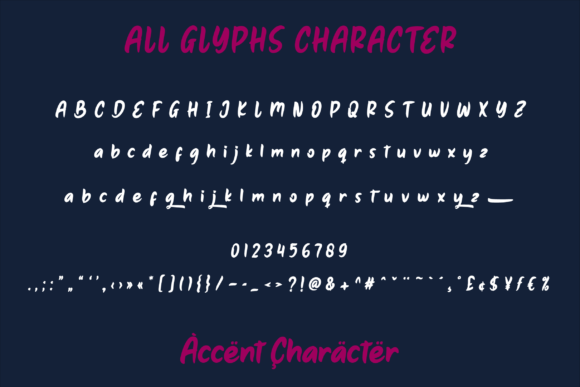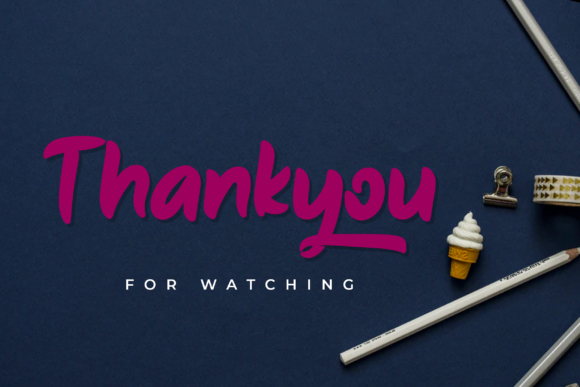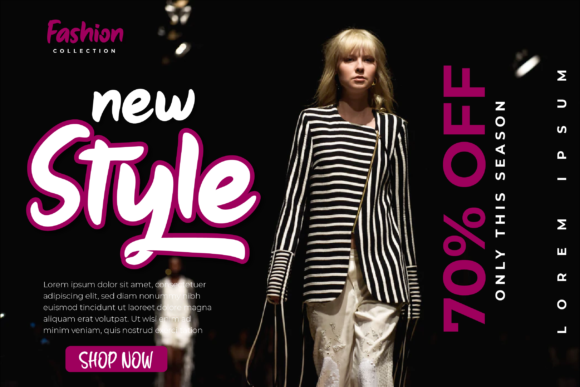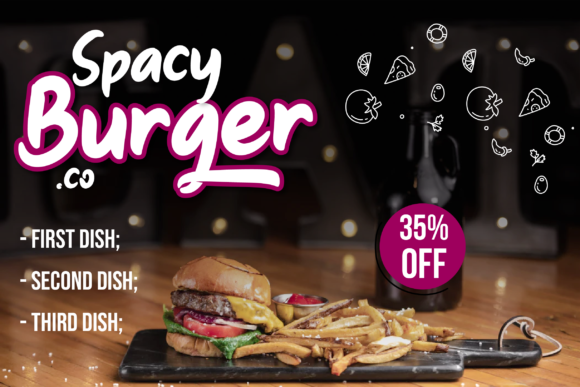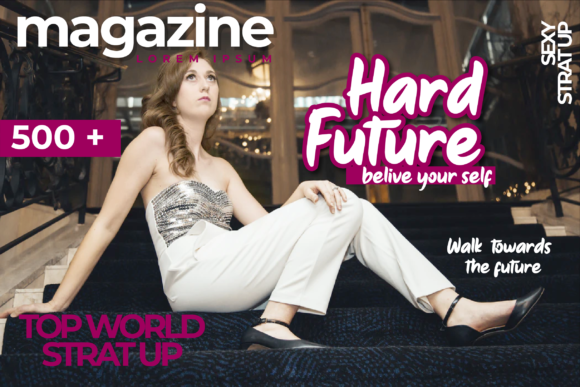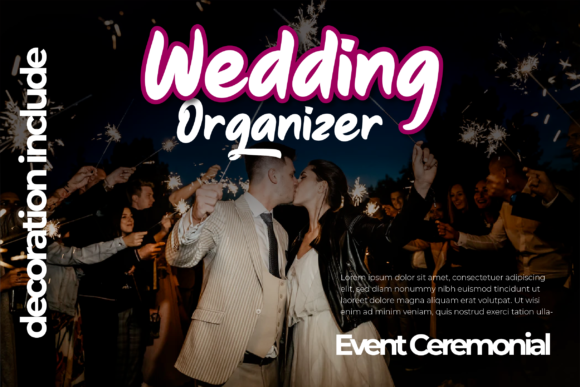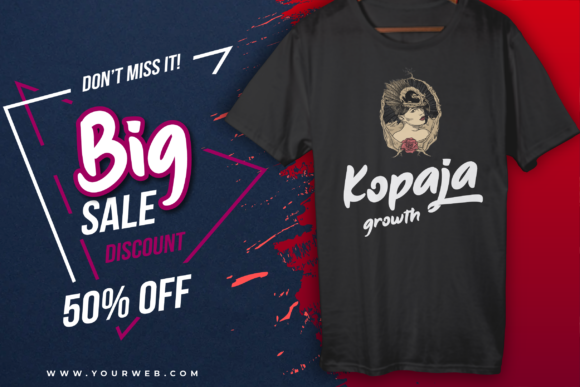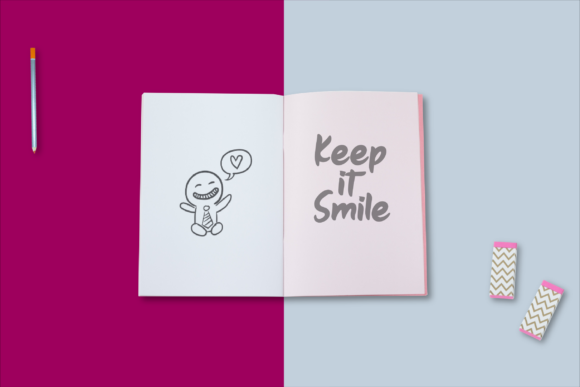
Qiyutie Font
About Qiyutie Font
Qiyutie is a hand-drawn font with a natural handwriting feel. It features an elegant feel and it is perfect for quotes, social media posts, advertisements, banners, posters, and much more!